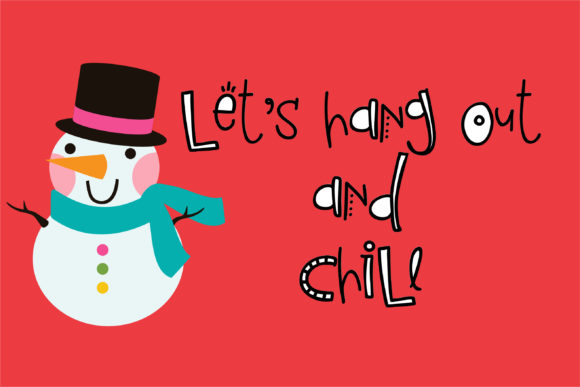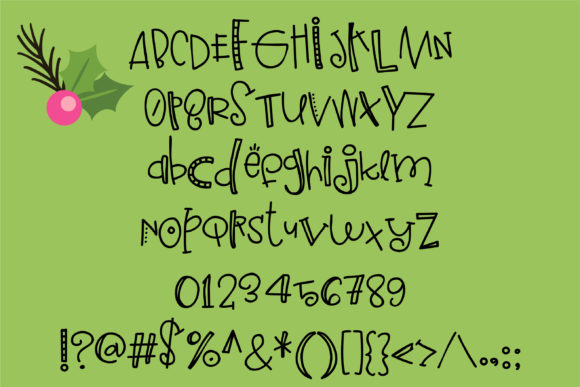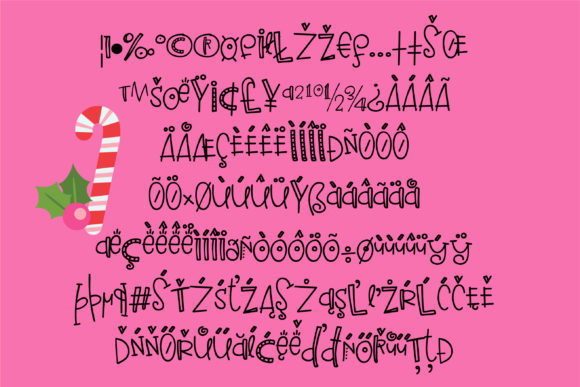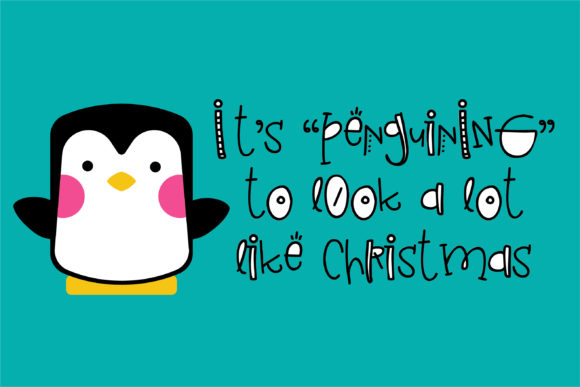
Elf Craze Font: Add a Touch of Whimsy to Your Designs
Are you looking for a font that captures the playful and mischievous spirit of elves? Look no further than the Elf Craze Font! This hand-illustrated font is designed to bring a sense of crazy whimsy to your designs, making it perfect for crafters, designers, and anyone looking to add a touch of magic to their work.
What is Elf Craze Font?
Elf Craze Font is a unique, hand-illustrated font that features playful and quirky lettering. Each letter is carefully crafted to resemble the whimsical writing of an elf, with intricate details and flourishes that add to its charm. The font is perfect for creating festive and fun designs that are sure to capture the attention of your audience.
Key Features of Elf Craze Font
- Hand-illustrated design: Each letter is carefully crafted by hand, giving the font a unique and personal touch.
- Whimsical feel: The font has a playful and mischievous feel that’s perfect for creating festive and fun designs.
- Intricate details: The font features intricate details and flourishes that add to its charm and character.
- Perfect for crafters and designers: The font is ideal for crafters, designers, and anyone looking to add a touch of magic to their work.
Uses for Elf Craze Font
Elf Craze Font is a versatile font that can be used for a variety of design projects, including:
- Holiday designs: The font is perfect for creating festive holiday designs, such as Christmas cards, decorations, and gift tags.
- Crafting projects: The font is ideal for crafters who want to add a touch of whimsy to their projects, such as scrapbooking, card making, and DIY crafts.
- Branding and marketing: The font can be used to create unique and eye-catching branding and marketing materials, such as logos, brochures, and social media graphics.
- Digital art: The font can be used to create digital art, such as illustrations, animations, and graphics.
Tips for Using Elf Craze Font
Here are some tips for using Elf Craze Font in your designs:
- Use it sparingly: Because of its bold and playful design, it’s best to use Elf Craze Font sparingly to add emphasis and interest to your designs.
- Pair it with other fonts: The font pairs well with other fonts, such as serif and sans-serif fonts, to create a unique and interesting contrast.
- Experiment with colors: The font looks great in a variety of colors, so don’t be afraid to experiment and find the perfect color scheme for your design.
Elf Craze Font is a unique and whimsical font that’s perfect for adding a touch of magic to your designs. With its hand-illustrated design, intricate details, and playful feel, it’s ideal for crafters, designers, and anyone looking to create festive and fun designs. Whether you’re working on a holiday project, a crafting project, or a branding and marketing campaign, Elf Craze Font is sure to bring a smile to your face and a touch of whimsy to your work.